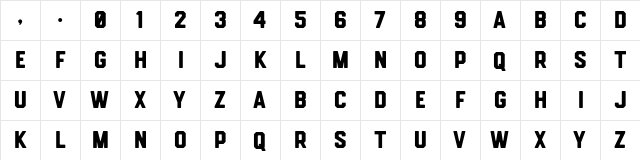
Hemisphers Sans Regular
Design Context for Hemisphers Sans Typeface
Hemisphers Sans offers clean, dependable letterforms without strong stylistic allegiance, making it a practical choice for designers who need flexibility.
Pro Tip: Use Hemisphers Sans in both headline and body roles to test its range before committing to a single application.